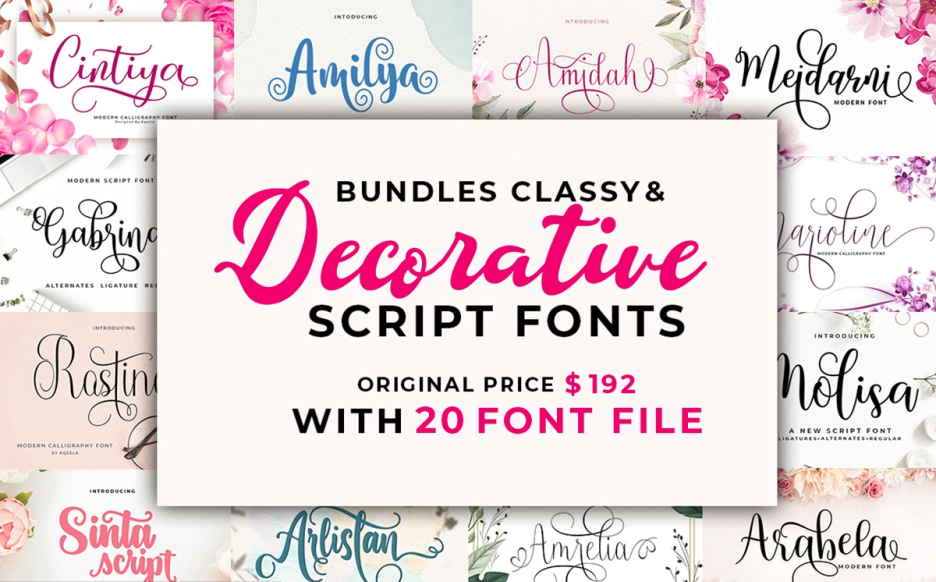
The Classy And Decorative Script Font Bundle
Introducing The Classy And Decorative Script Font Bundle, a carefully curated collection of elegant script fonts designed to elevate your creative projects. This bundle features a variety of styles, from flowing cursive to ornate lettering, perfect for adding a touch of sophistication to your designs.
• Multiple font styles, including regular, bold, and italic variations
• Rich decorative elements to enhance your typography
• Easy-to-read characters suitable for both headings and body text
• Weights: Light, Regular, Bold
• Combine different styles from the bundle for a unique look